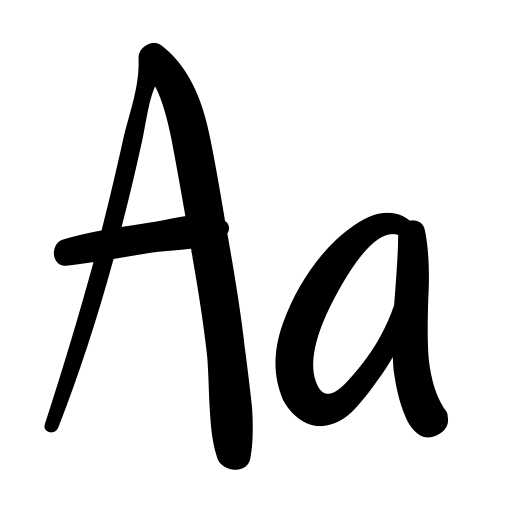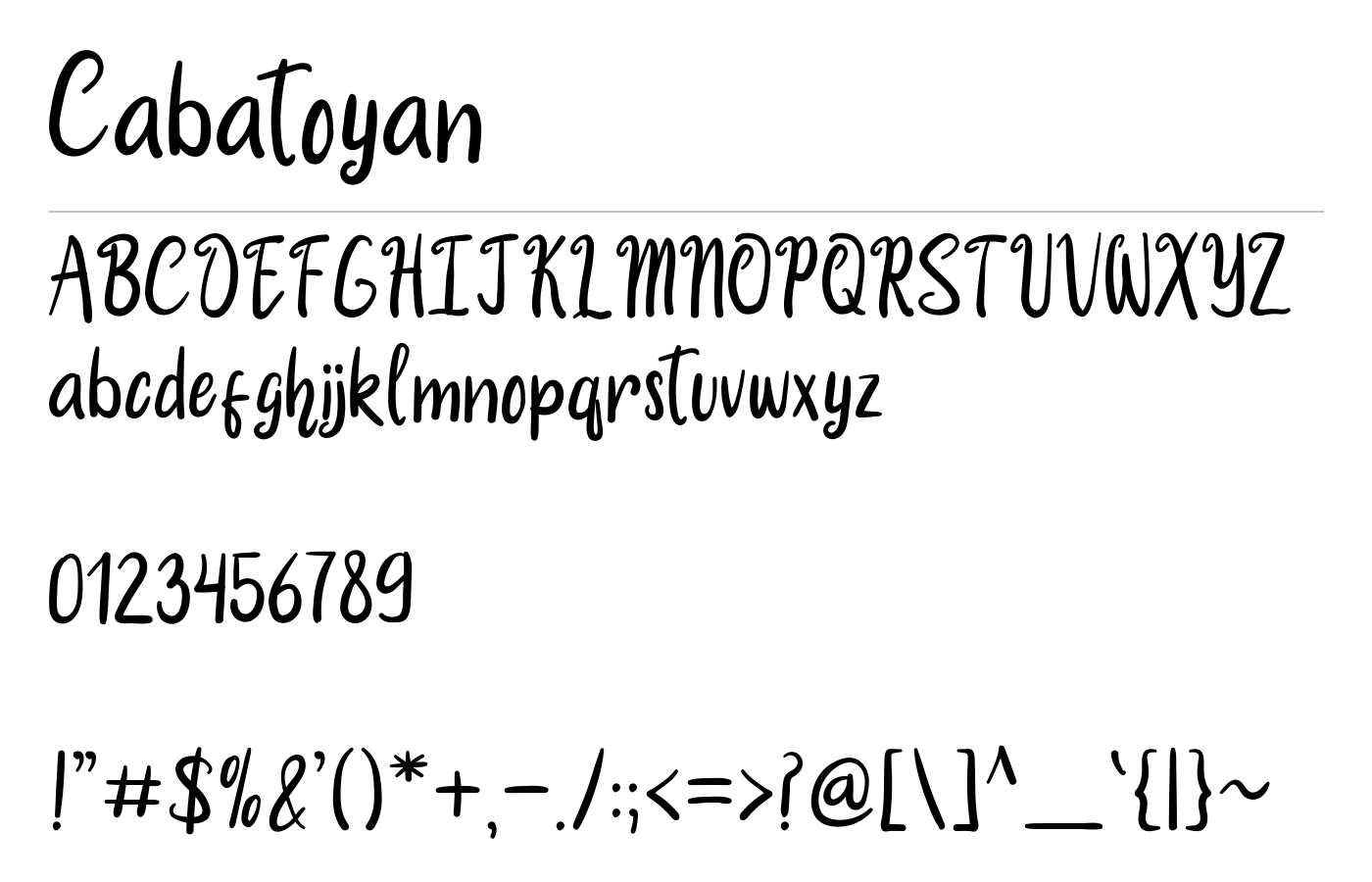
Cabatoyan is a lively and casual handwritten sans serif font with a friendly, approachable feel. Its moderately tall x-height and slightly irregular, playful letterforms create an informal yet clear style, making it perfect for creative projects, children’s books, and casual branding. This font works well for headlines, logos, and packaging where a warm and personal touch is desired.
Cabatoyan Font
About Cabatoyan Font